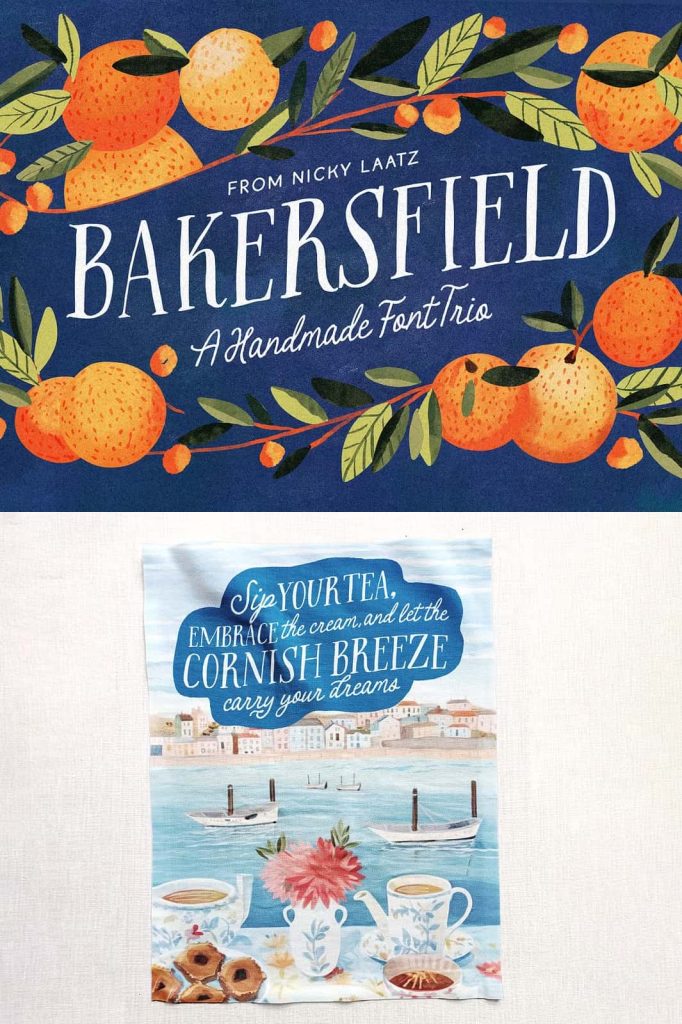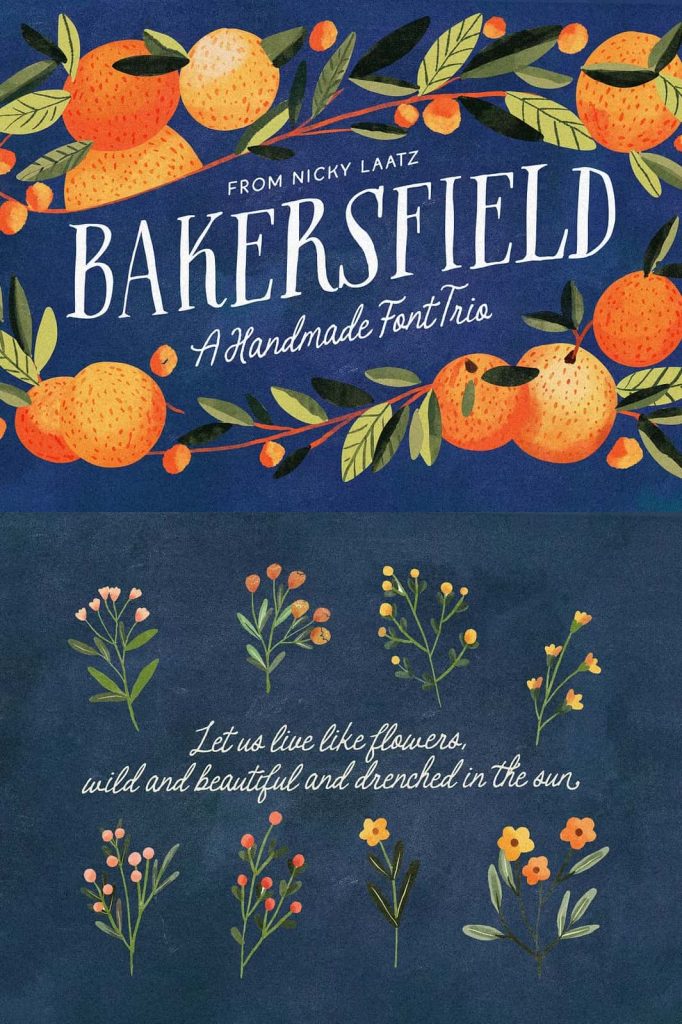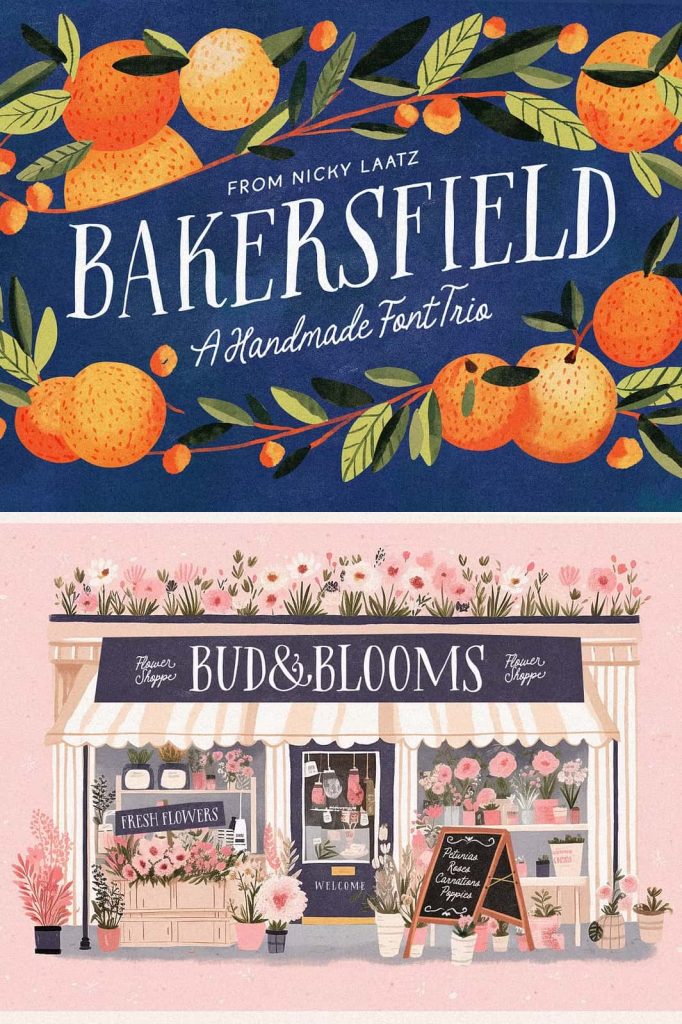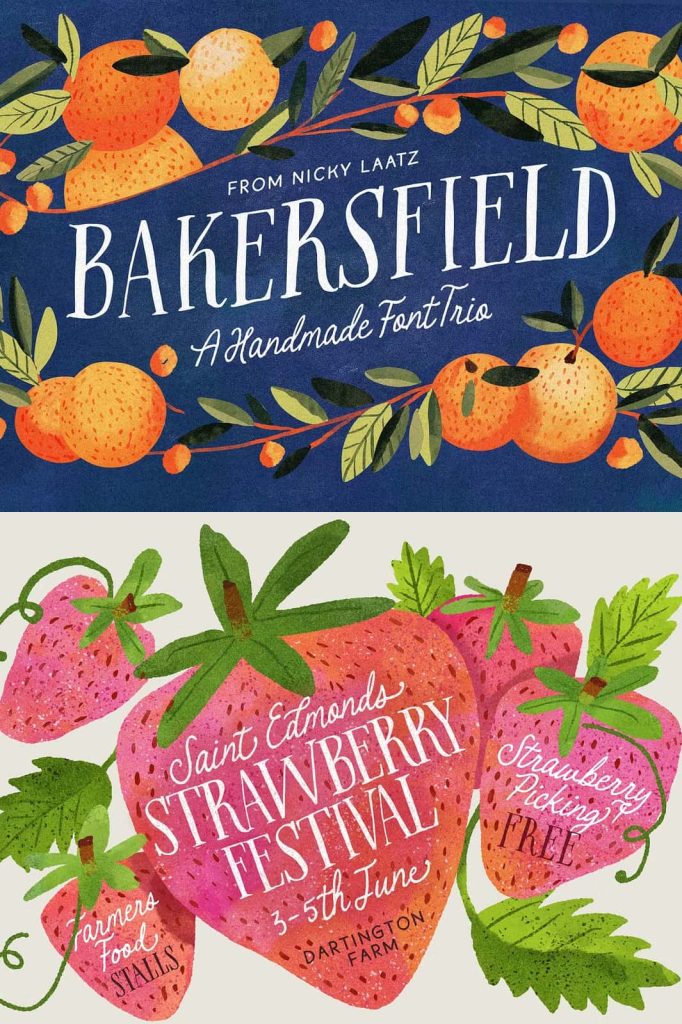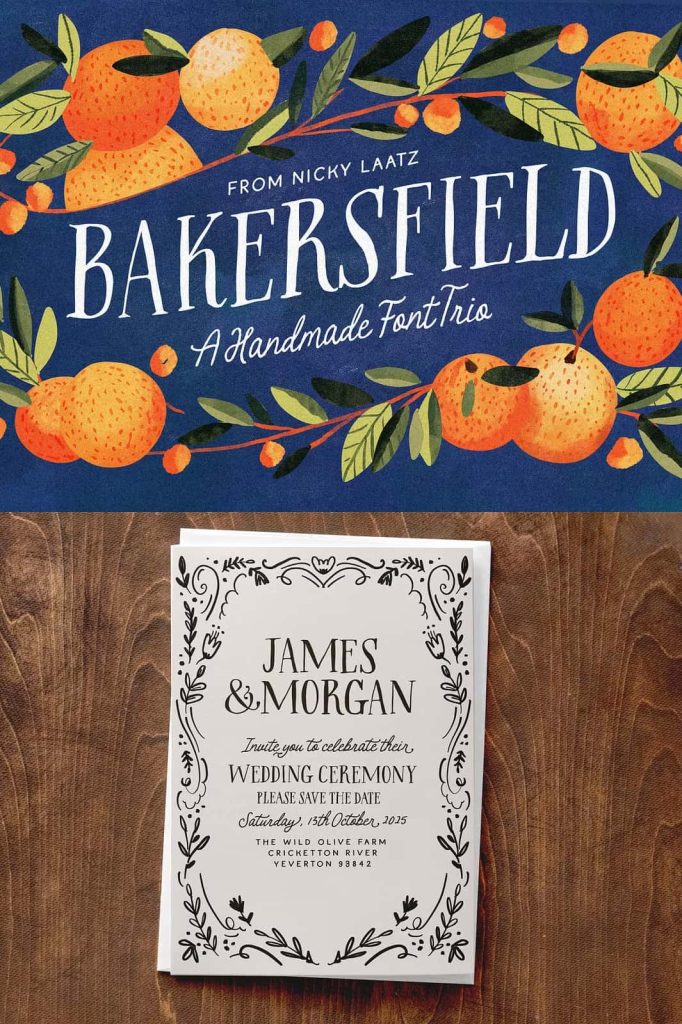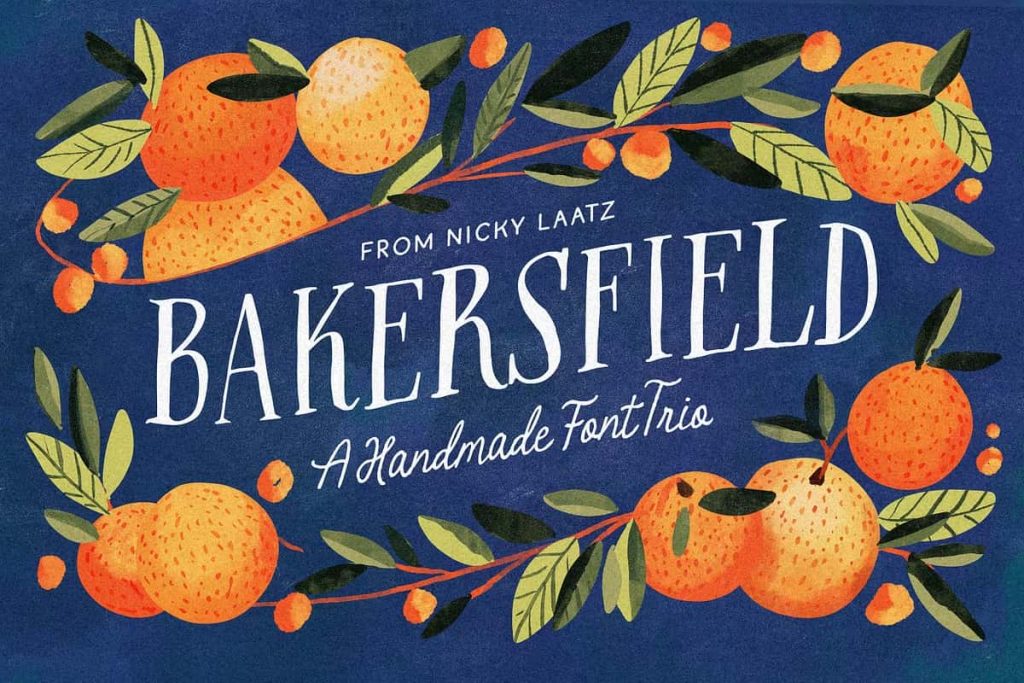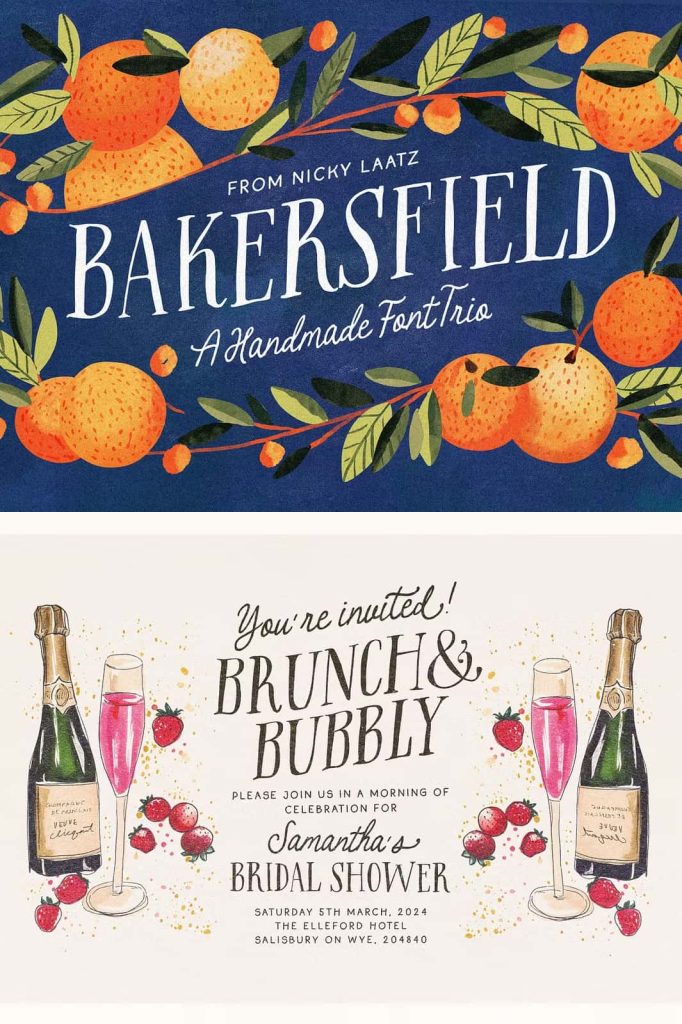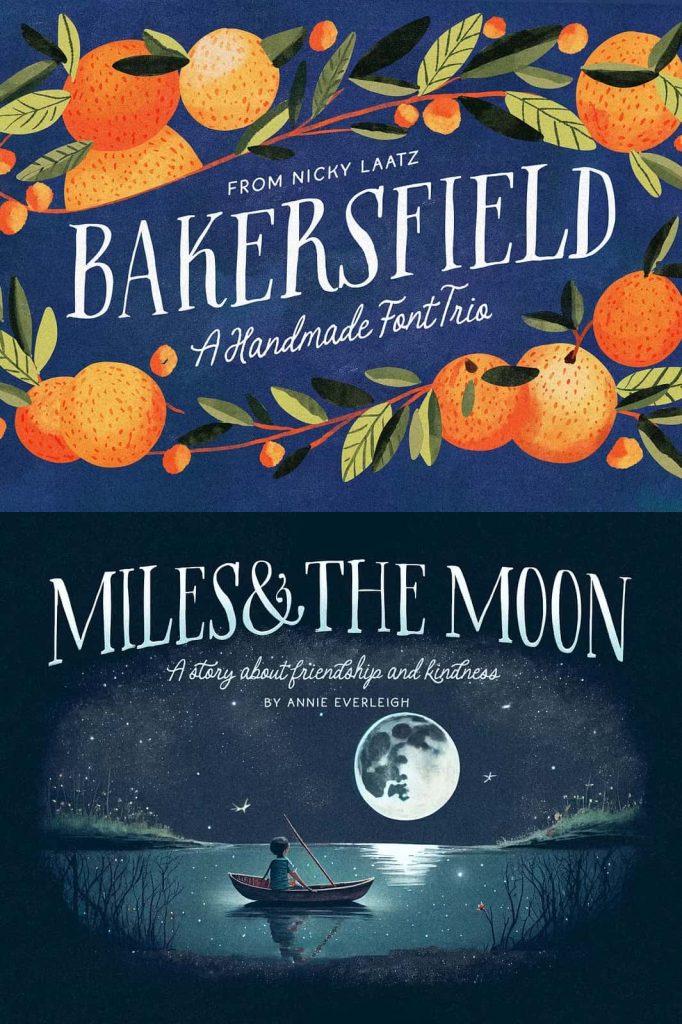
Say hello to The Bakersfield Font Trio! If you collect my handwritten packs, this one is another must for mixing and matching with your current packs 🙂 There are three fonts included in this typeface pack, one with a variant style, so 4 fonts in total.